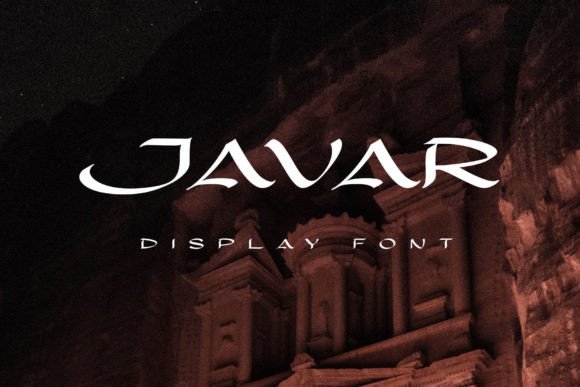
Journey through the grandeur of the Middle East with Javar Font, a display font that emanates strength and boldness. Inspired by colossal lettering, Javar boasts dynamic strokes achieved with a flat pen, resulting in captivating letterforms that command attention.
Unleash the power of Javar's all-caps presence, perfect for conveying messages of significance and impact. Its cultural and historical appeal makes it an ideal choice for designs seeking a timeless and authentic touch. Picture movie posters that transport you to ancient civilizations, headlines that demand attention, and posters that resonate with heritage and depth.
Javar's versatility extends beyond cultural and historical designs. Its striking letterforms bring a touch of intrigue to contemporary projects, adding an edge to logos, branding, and social media graphics. The font's innate boldness lends itself to impactful headlines, ensuring your message cuts through the noise and captivates your audience.
Embark on a voyage of visual storytelling with Javar Font. Its majestic letterforms and historical charm will transform your designs into captivating masterpieces, leaving an indelible mark on your audience. Don't let this typographic treasure pass you by; embrace the grandeur of Javar and witness the transformation of your creative endeavors.